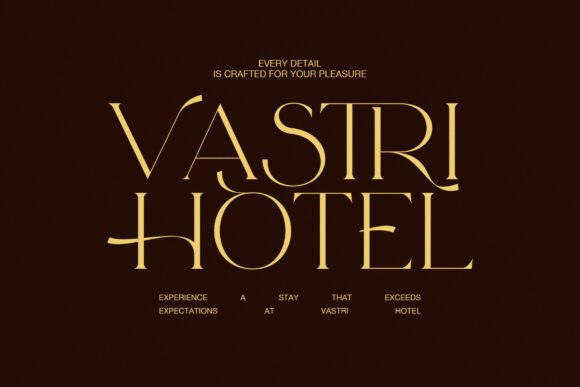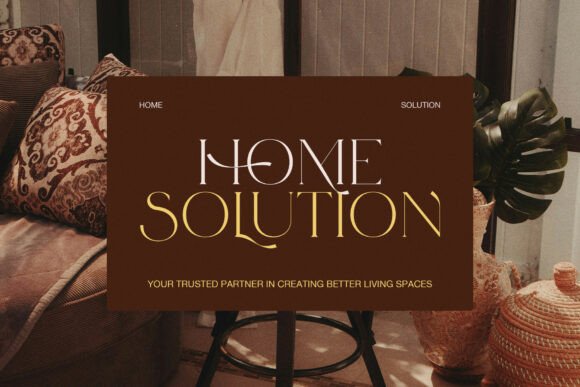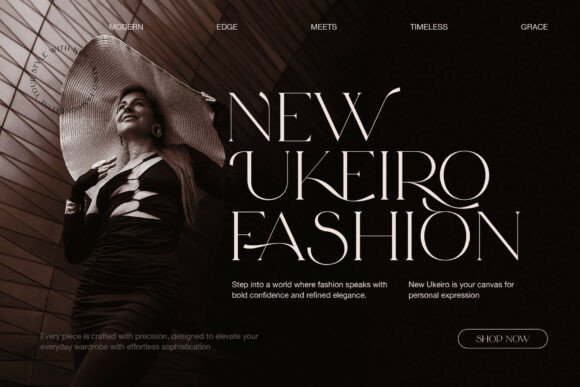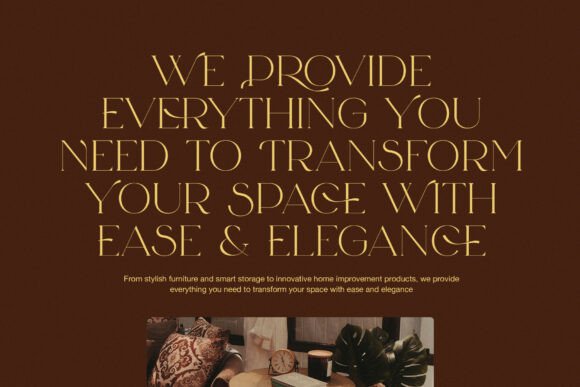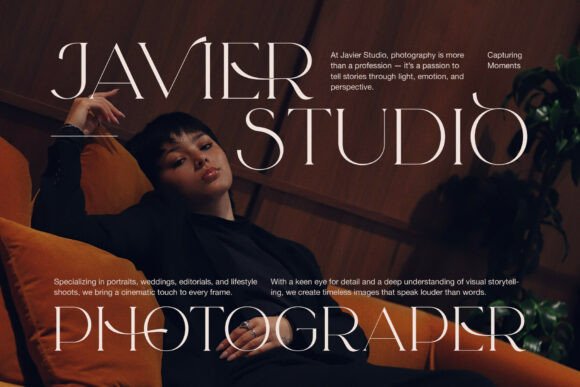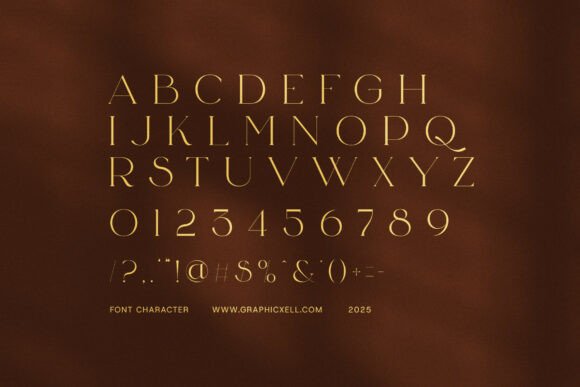
Bicers Font: Elevate Your Design with Simplicity and Elegance
In the world of design, typography plays a crucial role in conveying a message, building a brand, and creating an aesthetic appeal. When it comes to choosing the right font, designers often look for a balance between simplicity, elegance, and versatility. This is where Bicers Font comes into play. Bicers is a clean and modern serif font designed specifically for professionals who value simplicity and beauty. Its smooth curves and neat lines make every project look sharp and well-organized, giving your work a smart and elegant touch.
The Versatility of Bicers Font
Bicers Font is incredibly versatile, making it suitable for a wide range of design needs. Its clean form allows it to fit seamlessly into various design projects, including logos, websites, magazines, and product labels. The elegant style of Bicers makes it particularly well-suited for fashion, food, and boutique branding, where a touch of sophistication and class is essential. Whether you’re building a brand or designing a website, Bicers Font provides a reliable and stylish solution.
The Charm of Ligatures
One of the standout features of Bicers Font is its inclusion of practical ligatures. These special letter pairs add a natural flow to the text, improving how words connect and making your message easy to read. The ligatures in Bicers Font enhance the overall readability of your design, making it more friendly and eye-catching. This attention to detail sets Bicers apart from other fonts, providing a unique charm and character to your layout.
Balance and Harmony
Bicers Font is designed to maintain balance and harmony in every letter. The clear shapes and smooth curves ensure that the font looks great in both small details and large titles. This versatility makes Bicers Font perfect for a variety of applications, from social media posts to brand kits. The font’s ability to convey a sense of elegance and sophistication, while remaining clean and simple, makes it an excellent choice for designers and crafters.
Why Choose Bicers Font?
There are several reasons why Bicers Font stands out from other fonts:
- Clean and Modern Design: Bicers Font boasts a sleek and contemporary design that looks great in any project.
- Versatility: Suitable for a wide range of design needs, including logos, websites, magazines, and product labels.
- Elegant Style: Perfect for fashion, food, and boutique branding, where a touch of sophistication is essential.
- Practical Ligatures: Enhances readability and adds a natural flow to the text.
- Balance and Harmony: Maintains balance and harmony in every letter, making it perfect for small details and large titles.
Bicers Font is an excellent choice for designers and crafters looking for a clean, modern, and elegant serif font. Its versatility, practical ligatures, and balance make it perfect for a wide range of design needs. Whether you’re building a brand, designing a website, or creating a product label, Bicers Font provides a reliable and stylish solution. With its smooth curves and neat lines, Bicers Font is sure to elevate your design and add a touch of sophistication to your work.